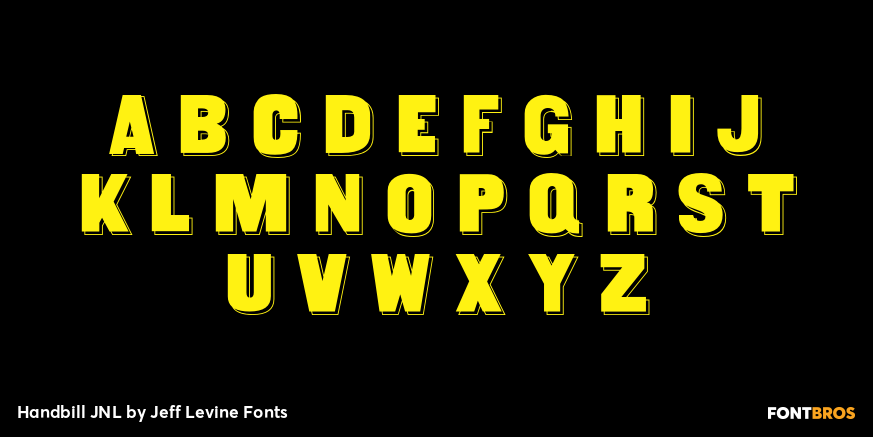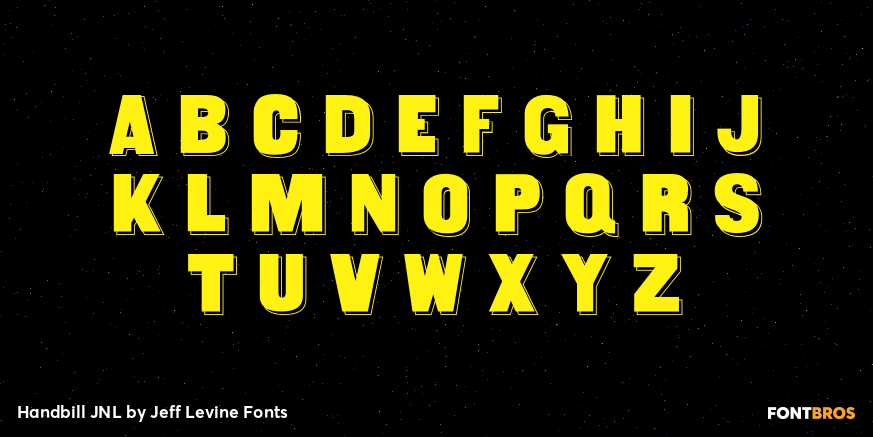
Handbill JNL
Buy NowHandbill JNL is based on vintage wood type, but given an open drop shadow treatment as was sometimes popular with display fonts of the Victorian era.